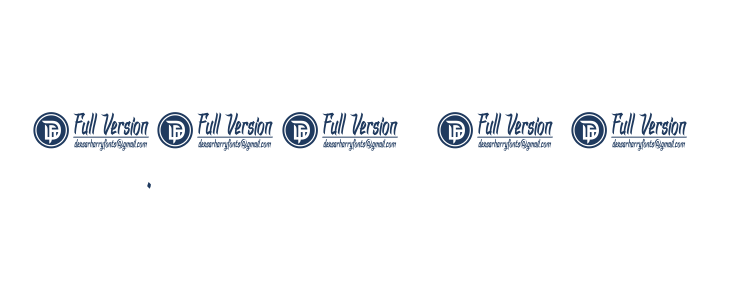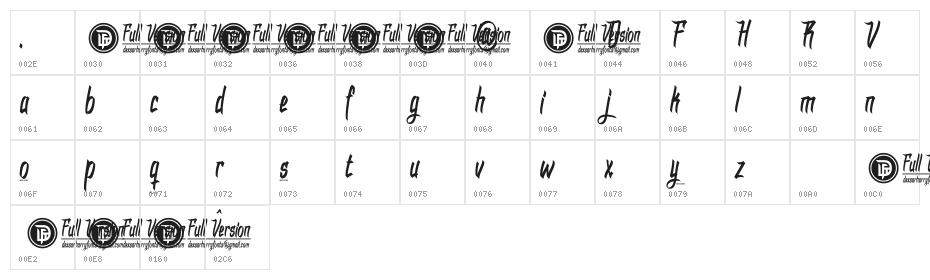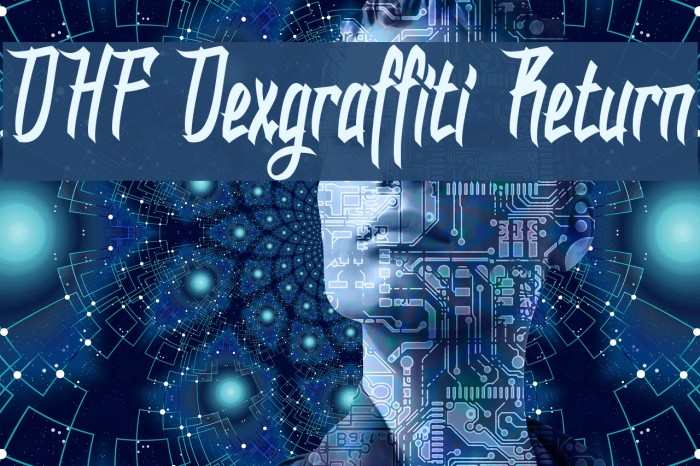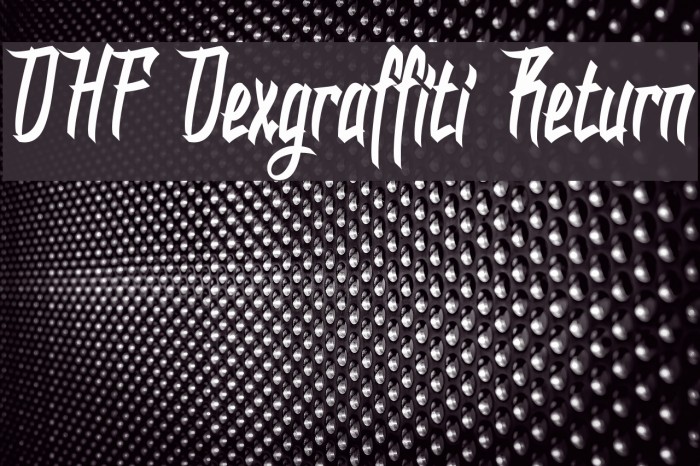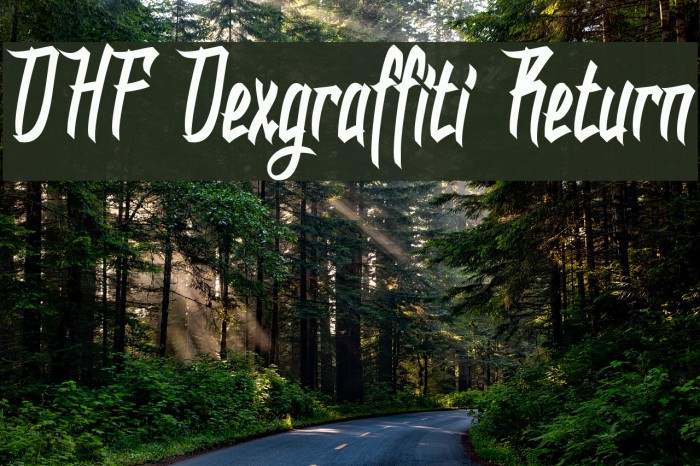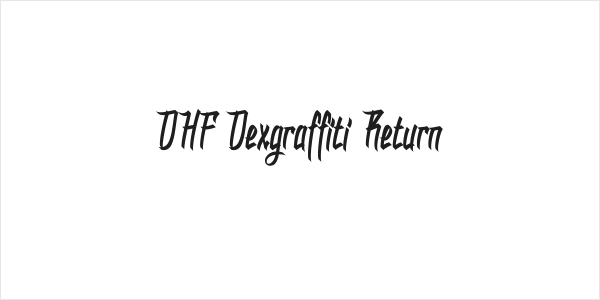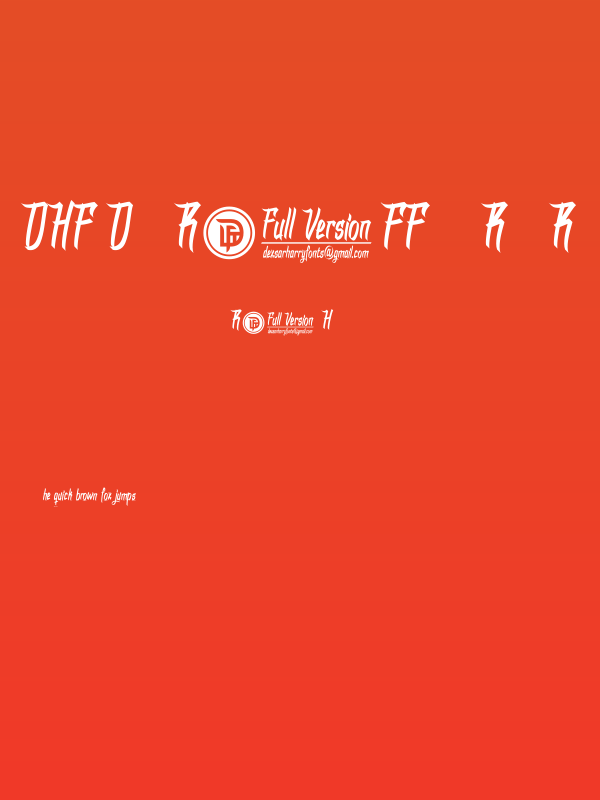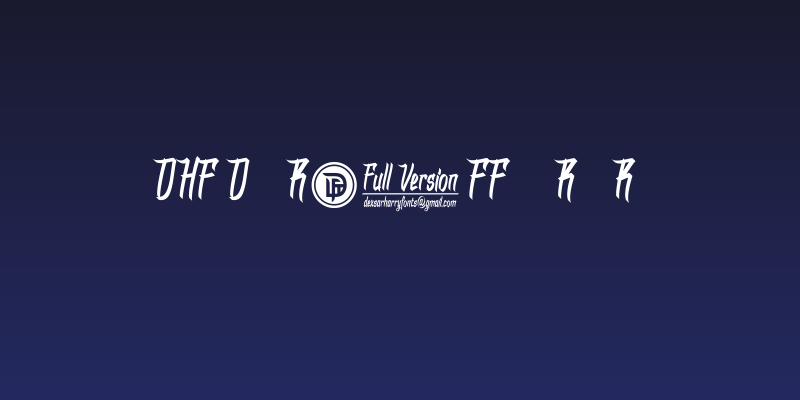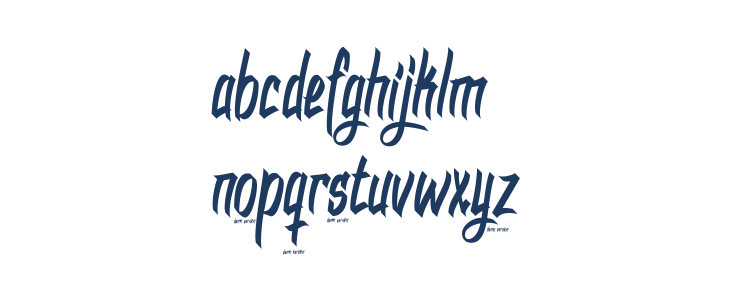
DHF Dexgraffiti Return Font
DHF Dexgraffiti Return Description
This font exhibits a bold, graffiti-inspired style with sharp, angular lines and a dynamic, energetic feel. The uppercase letters are tall and narrow, featuring exaggerated serifs and unique, artistic flourishes that give each character a distinct personality. The lowercase letters maintain a consistent style, with a slightly more compact form that complements the uppercase set. The overall design is reminiscent of street art, with a rebellious and urban aesthetic that stands out. The font's edgy appearance makes it suitable for projects that require a bold statement or a creative, unconventional look.
| Overall Style | Modern, Urban, Edgy |
| Proposed Projects | Ideal for street art designs, urban-themed posters, music album covers, and edgy branding projects. |